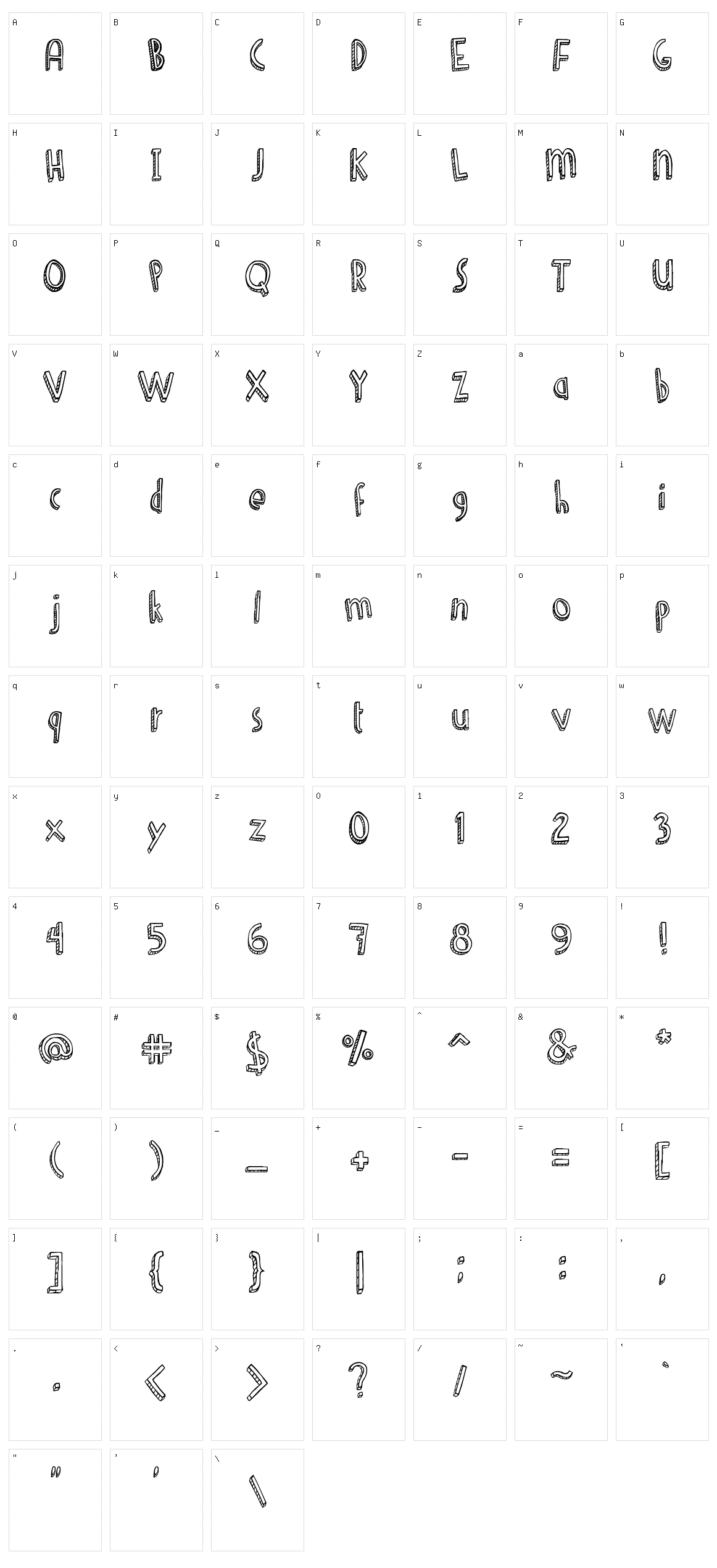
The free font Denne Shuffle Euro Hollow is carefully designed by Denne, showcasing a thoughtful balance of creativity and usability and falls under the Cartoon font style. When you download the ZIP file, it contains only 554.47 KB of font files, making it lightweight and quick to download. Please review the license details below to understand permitted usage and distribution rights. If license information is not available, we recommend using this font for personal projects only or contacting the author directly for commercial usage permissions.